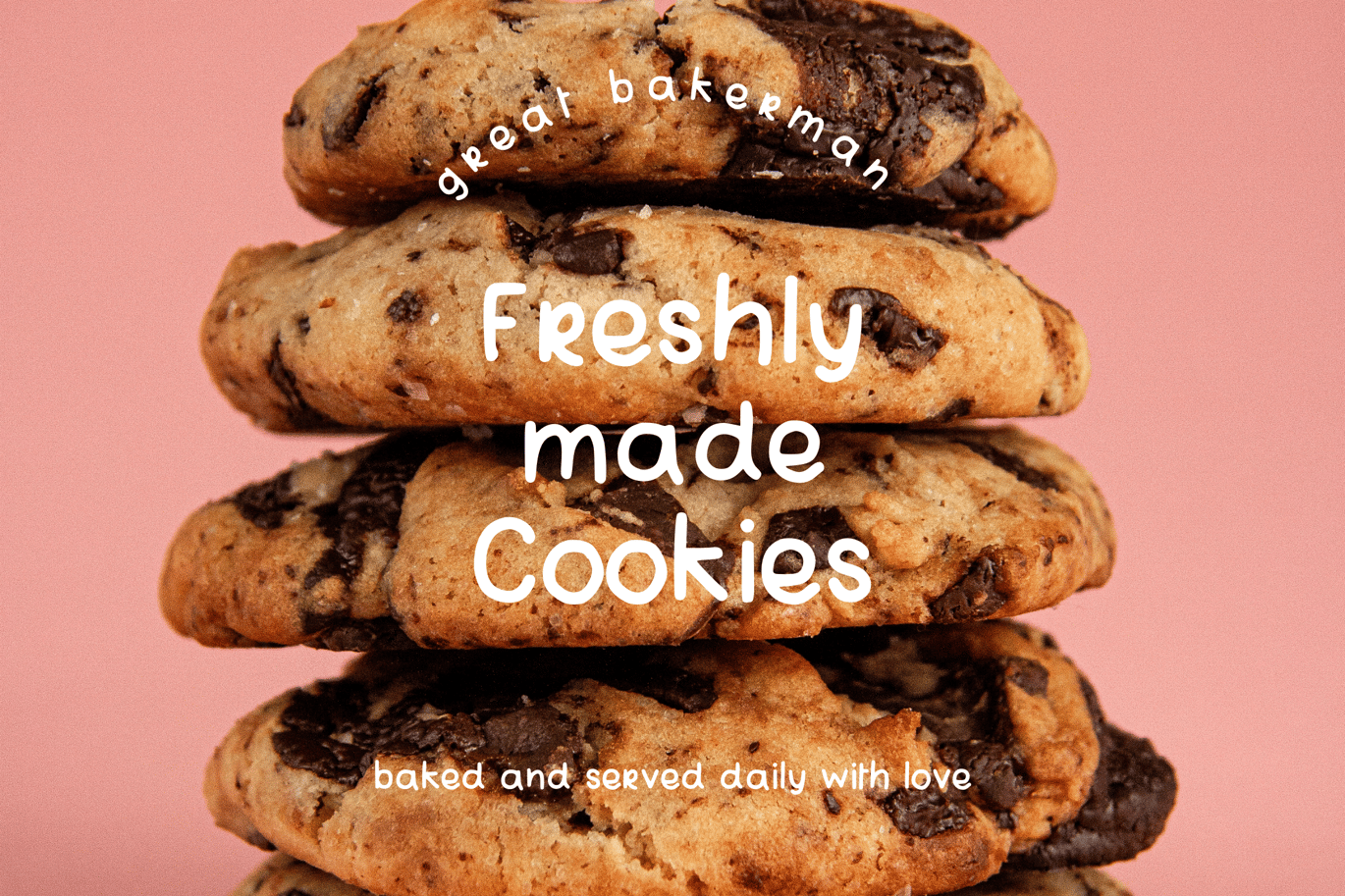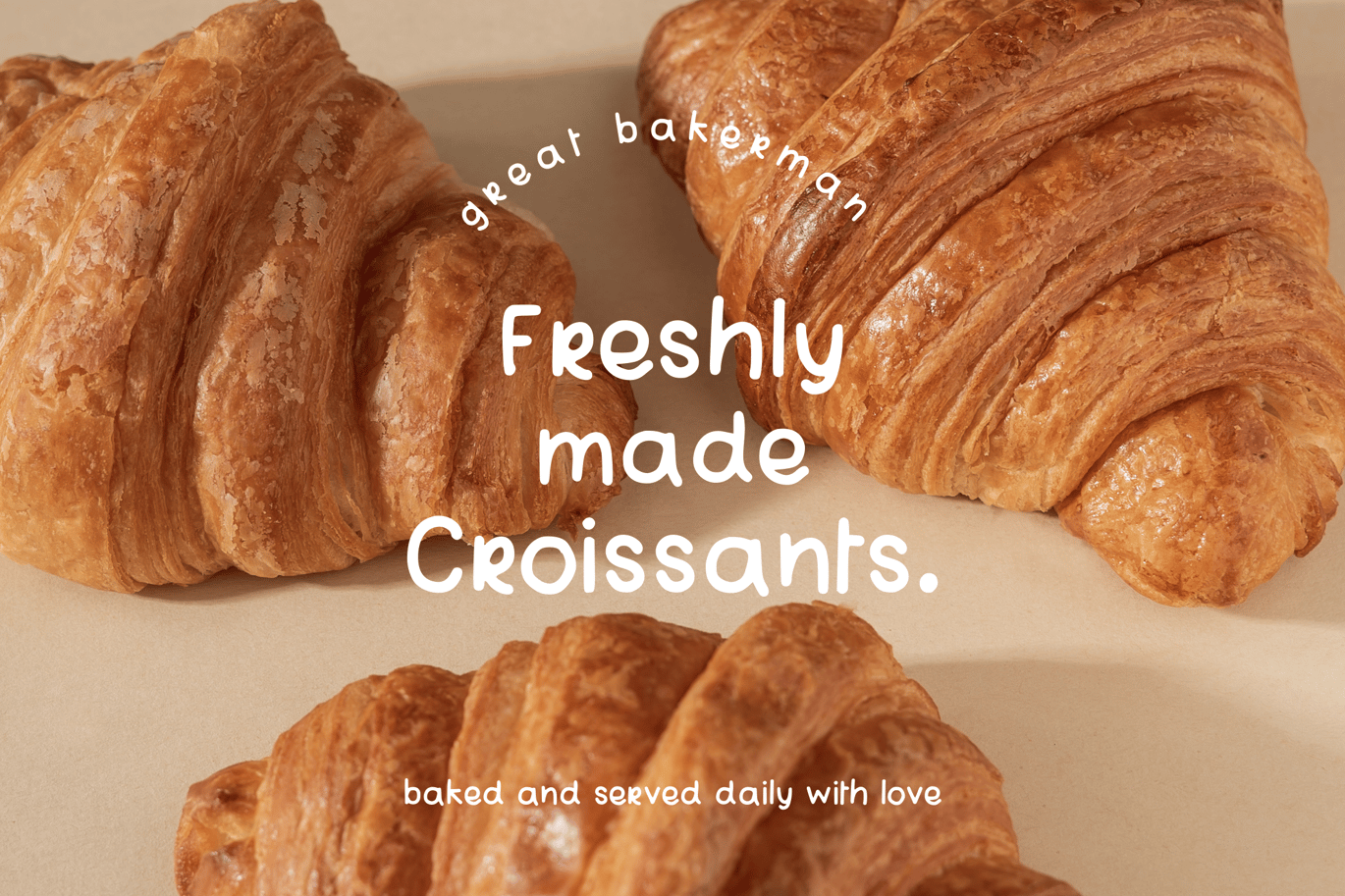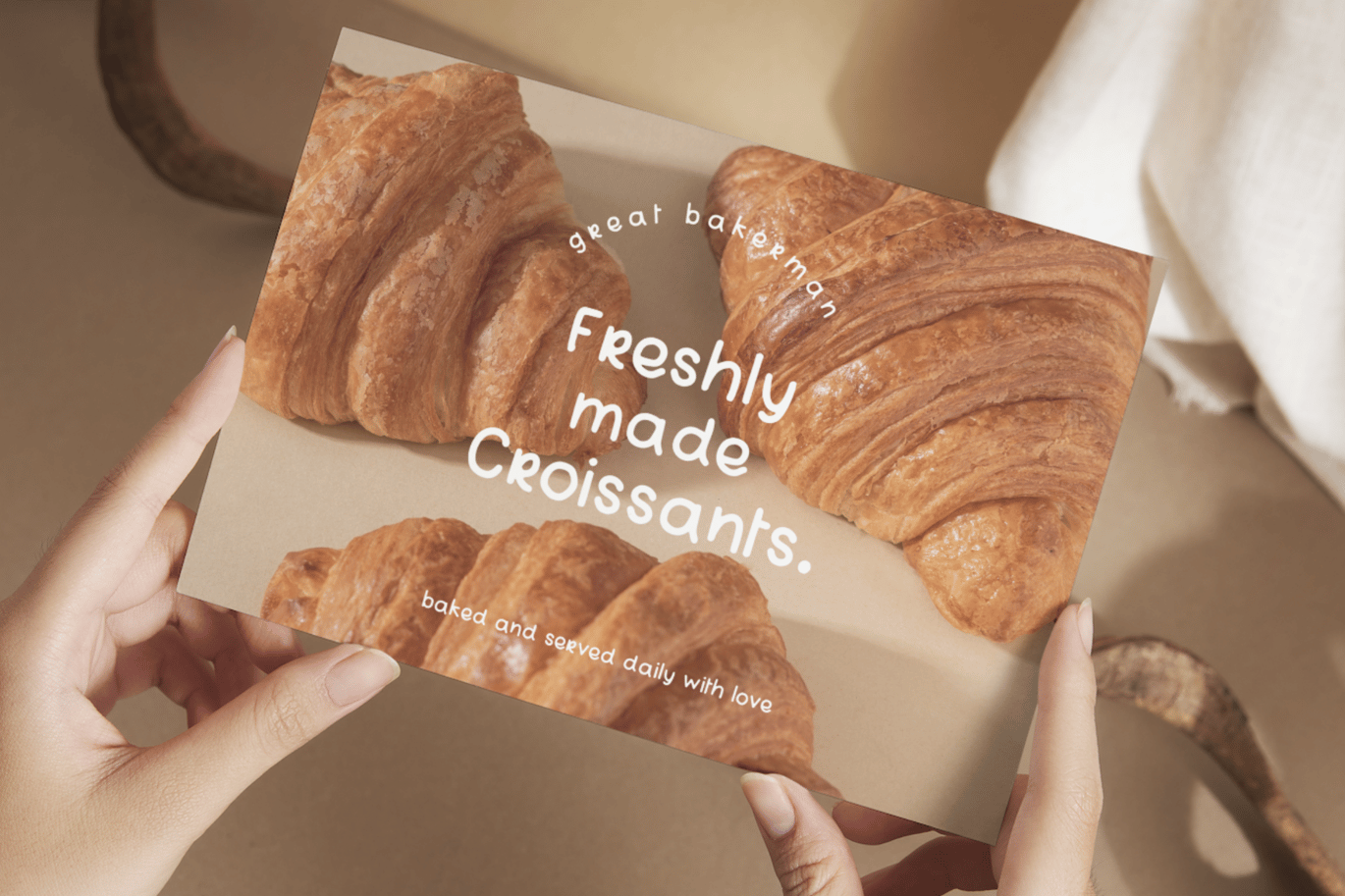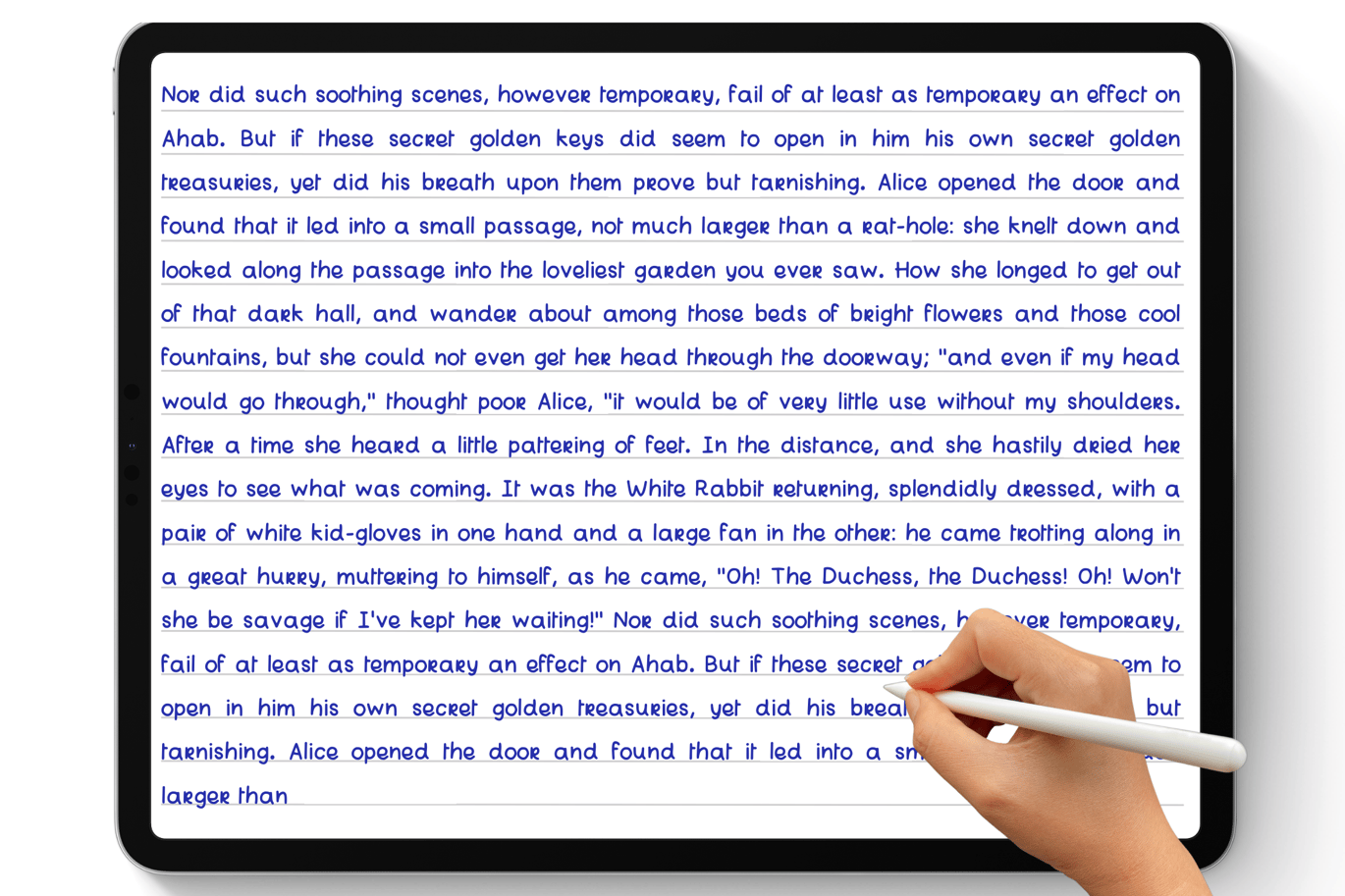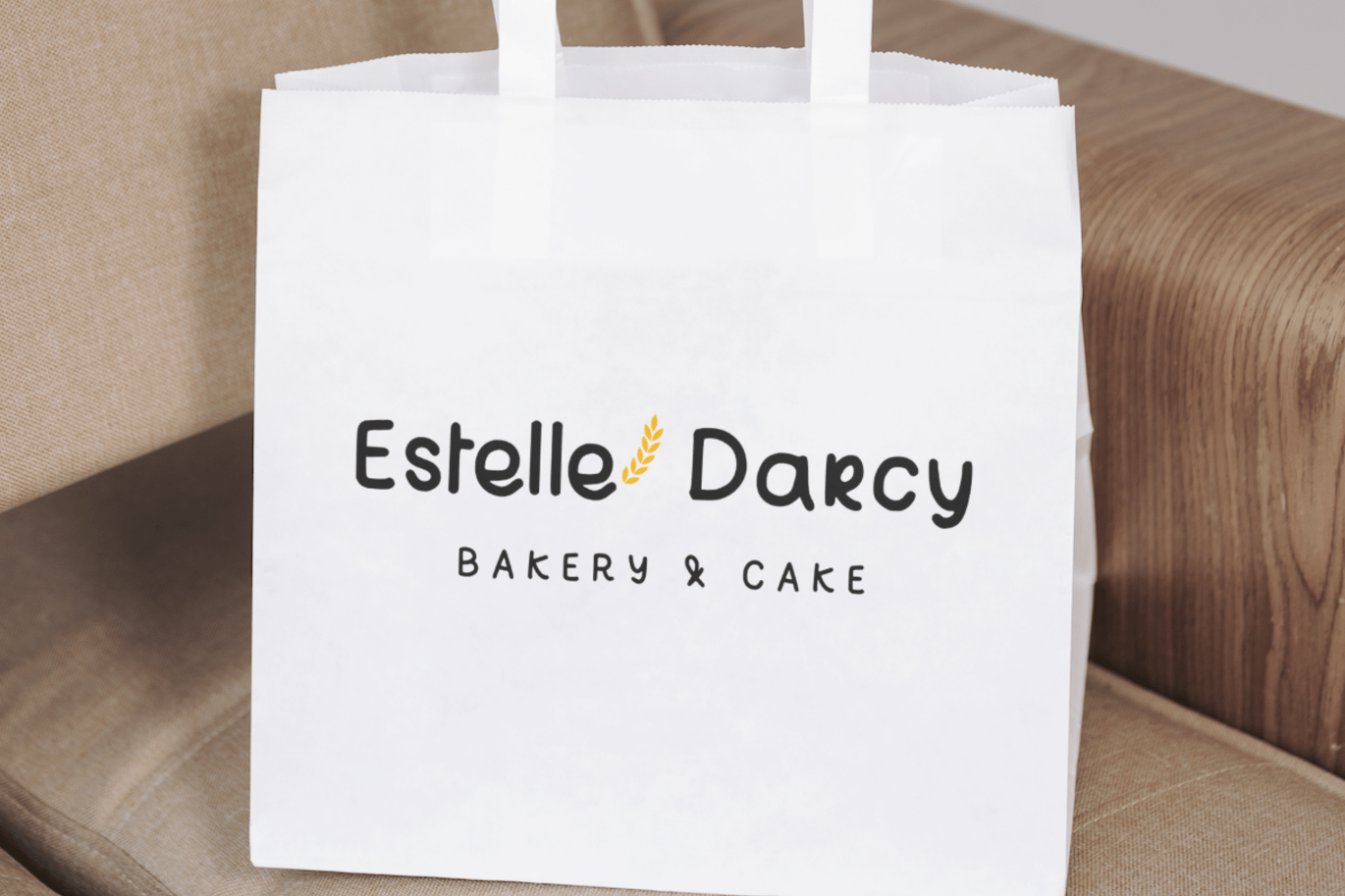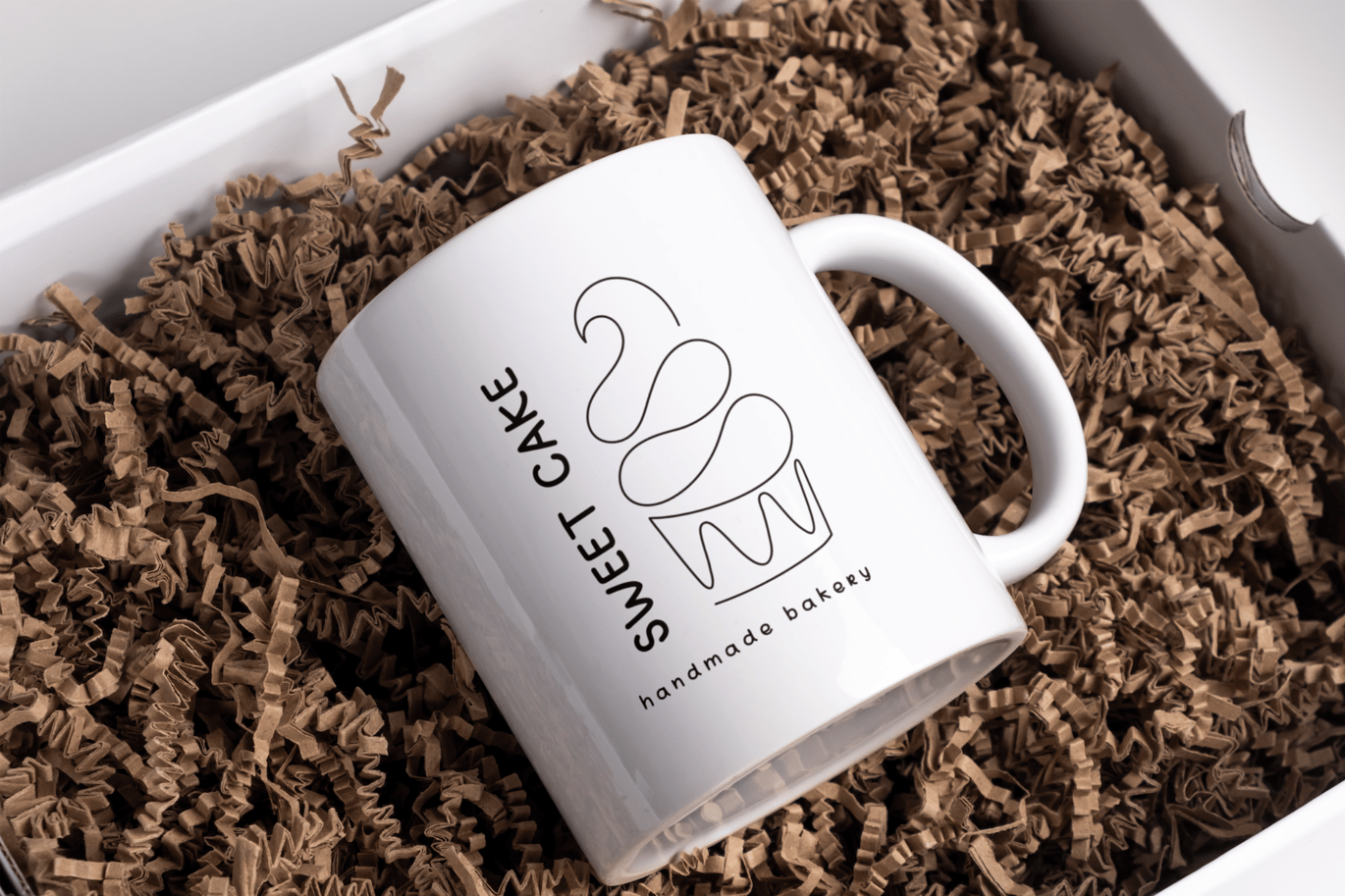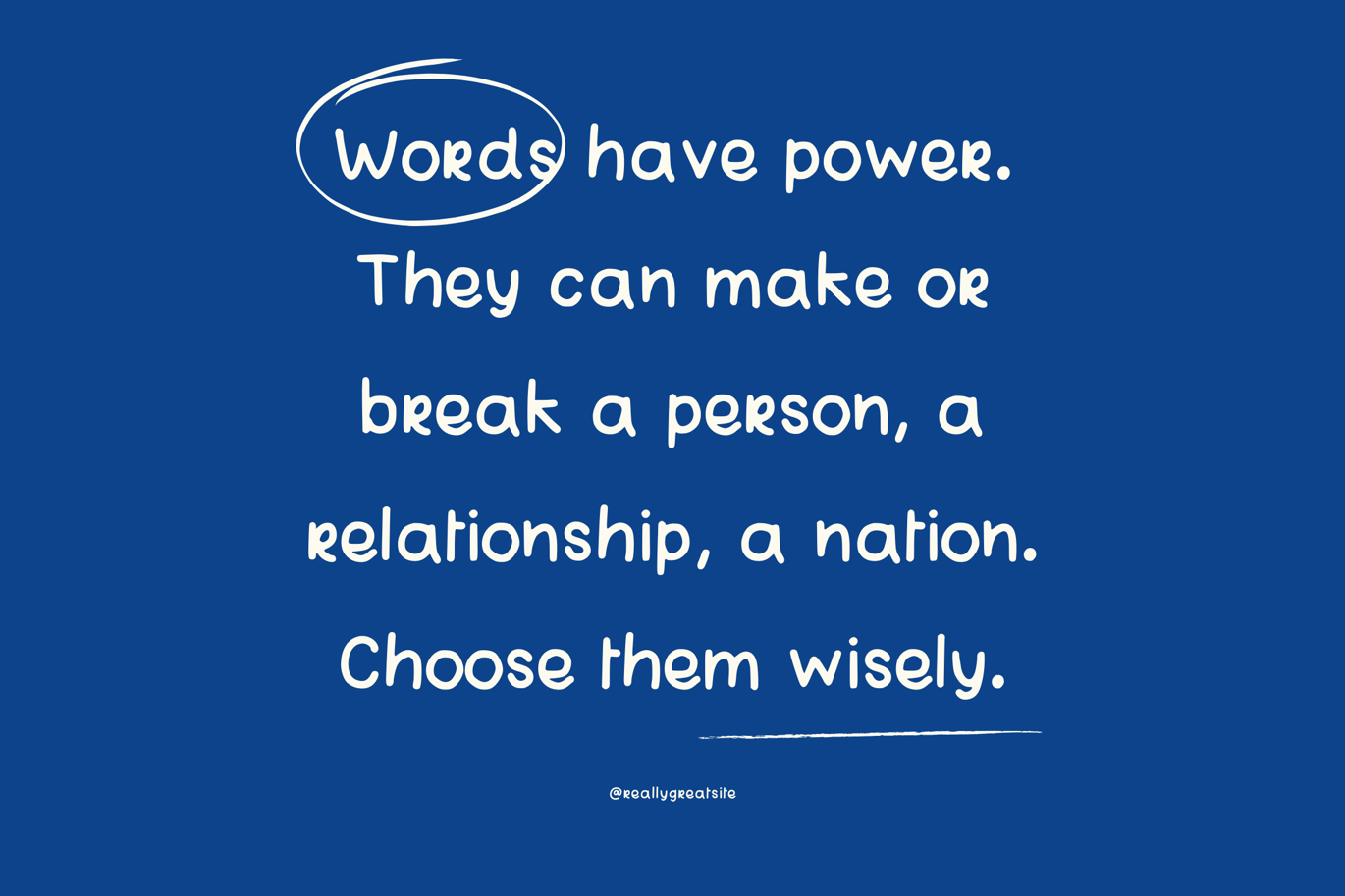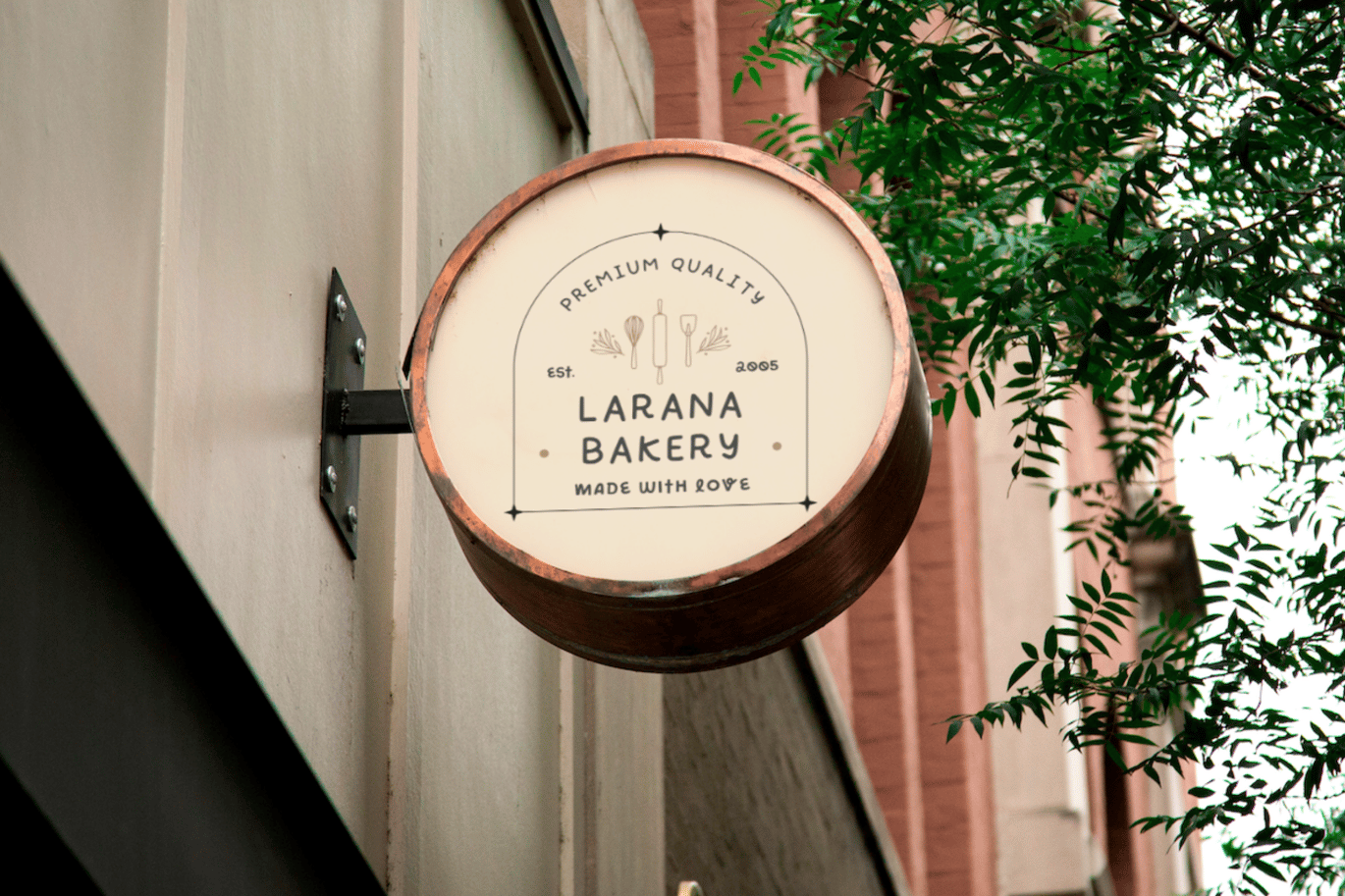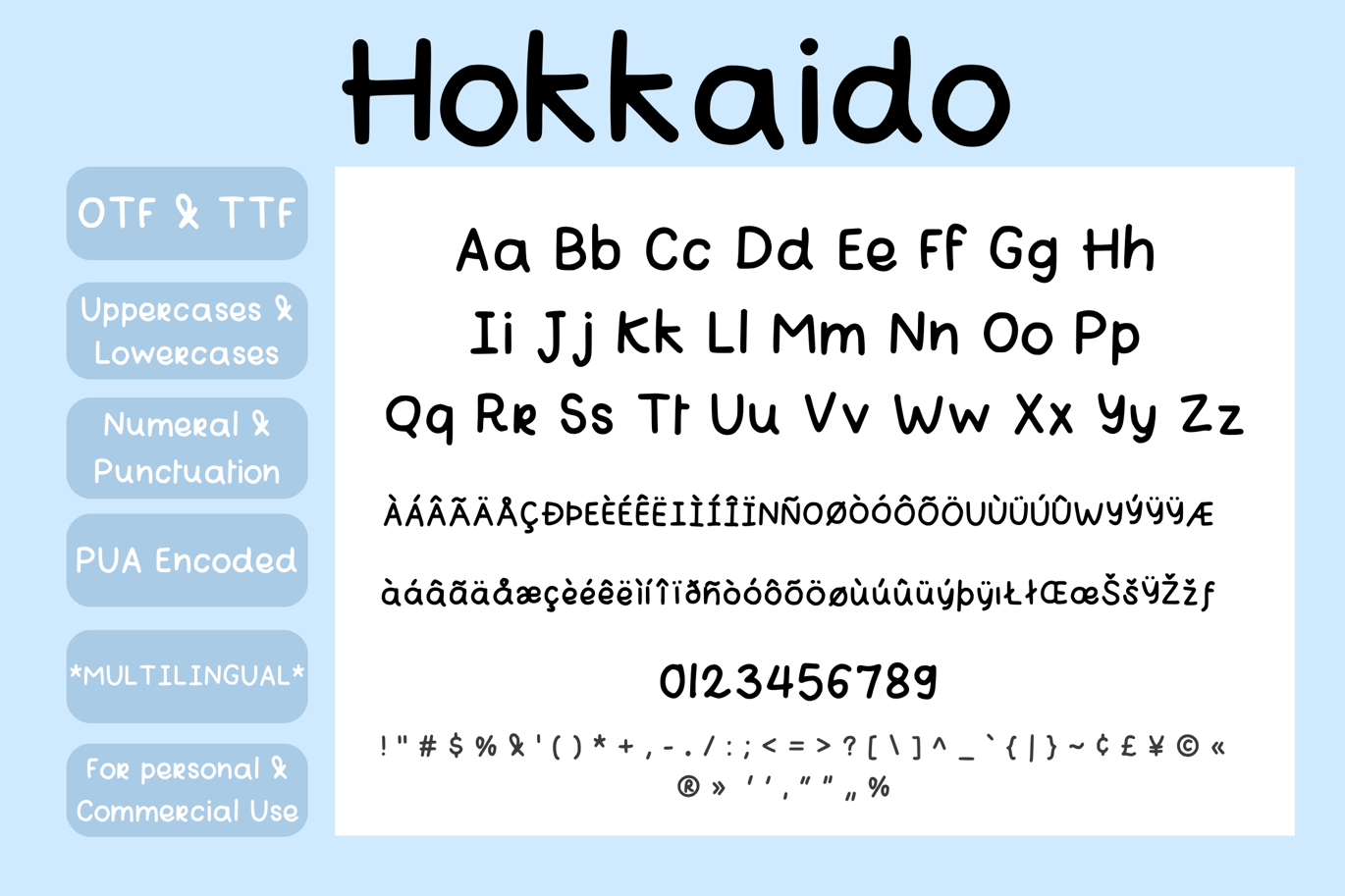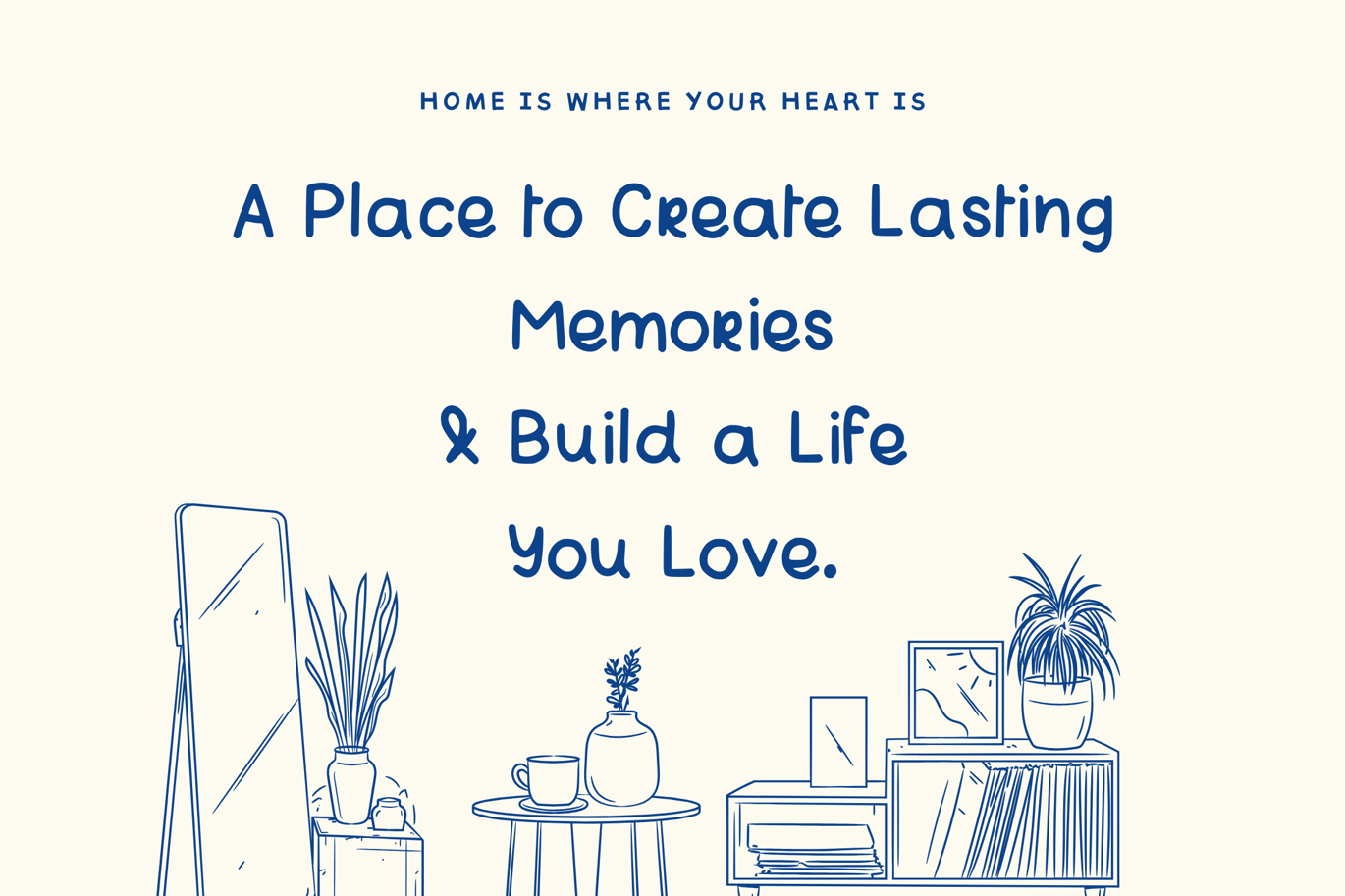
Hokkaido Cute Handwritten Font
Hokkaido font is a very neat handwritten font that can be used as a Sweet Handlettered Font, Western Font, Handwriting Quote Font, Digital Note Font, Aesthetic Font, GoodNotes Handwriting Font, Print On Demand Font
It is perfectly suitable for numerous use, such as quotations, banners, logos, product packaging, titles, headers, menu lists, etc. Also, this font can work well on iPad planners, digital planners, GoodNotes templates, as well as other digital notes and journals.